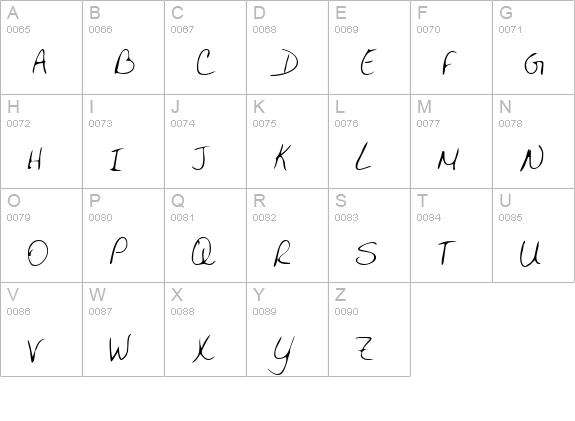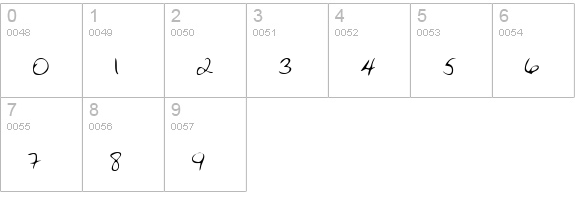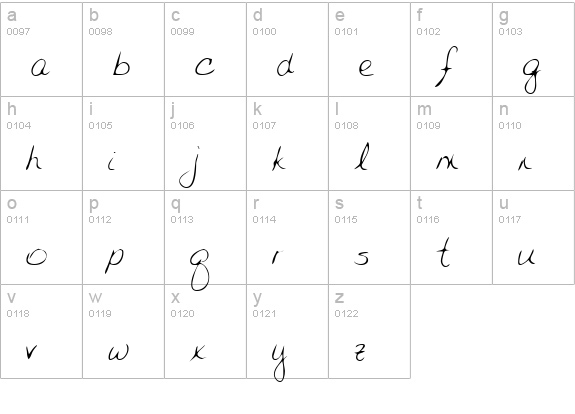
JeninesHand Regular Font Details
JeninesHand Regular is the standard, neutral variant in the JeninesHand typeface family \xE2\x80\x94 well suited to general body text, paragraphs, and standard typographic work.
JeninesHand Regular font is a charming and elegant typeface that exudes a sense of whimsy and creativity. With its handwritten style and unique flair, this font is perfect for adding a personal touch to any project. Whether you're designing invitations, creating branding materials, or crafting social media graphics, JeninesHand Regular will bring a touch of warmth and personality to your designs. Best of all, JeninesHand Regular font is available for free download at FontsMarket.com. This means you can easily access this beautiful font and use it in your projects without any cost. Don't miss out on the opportunity to enhance your designs with the beauty and charm of JeninesHand Regular font - download it today and let your creativity soar!